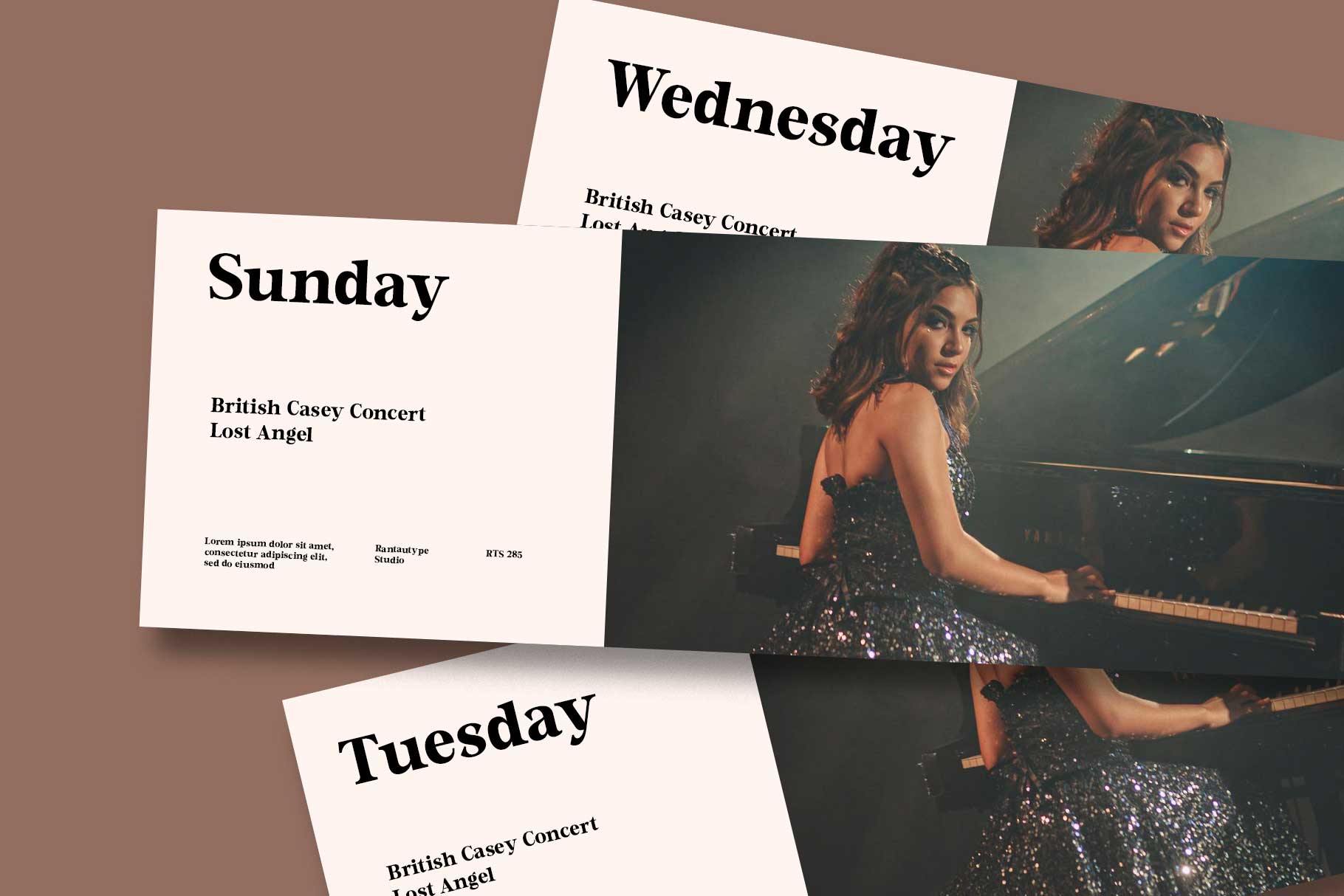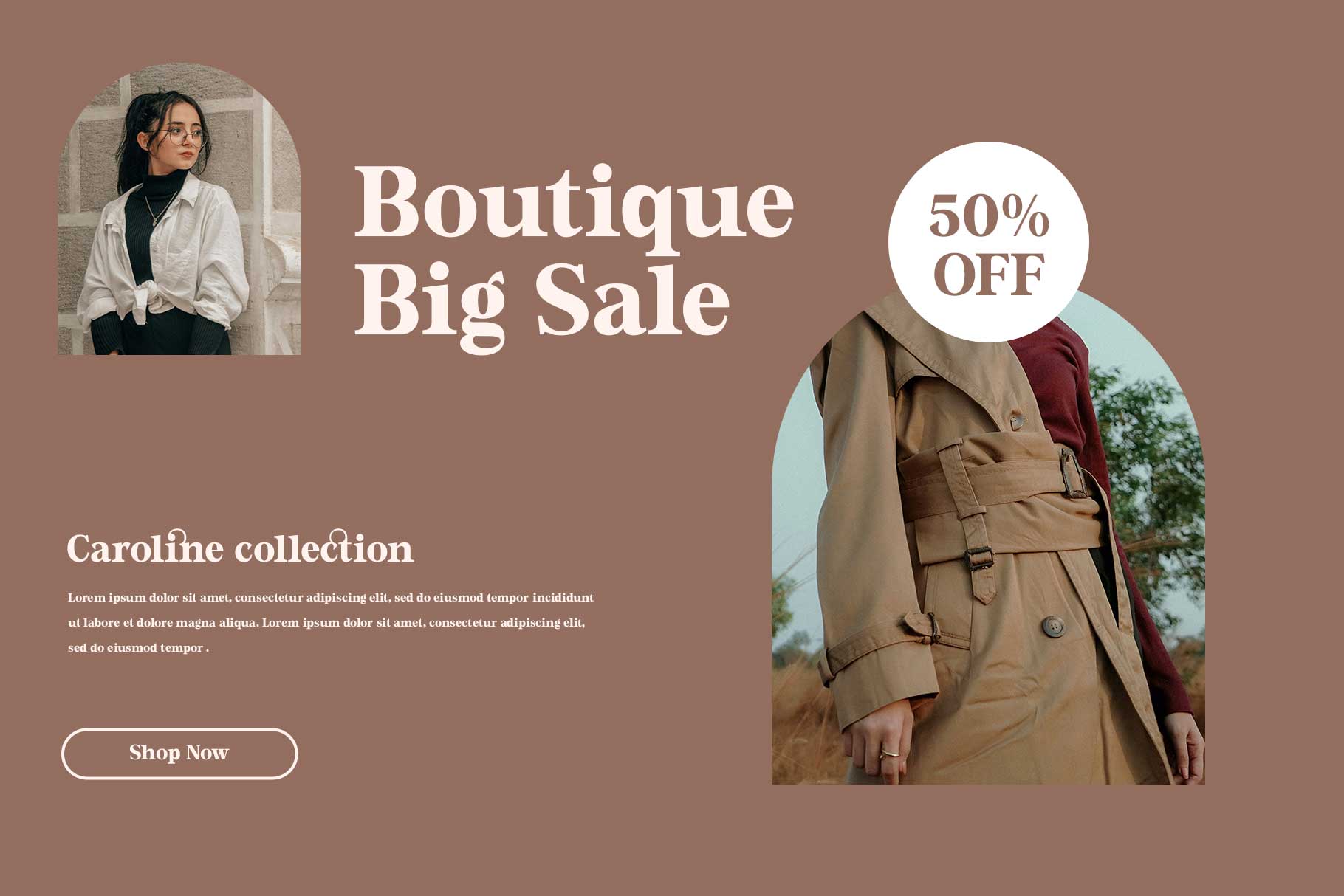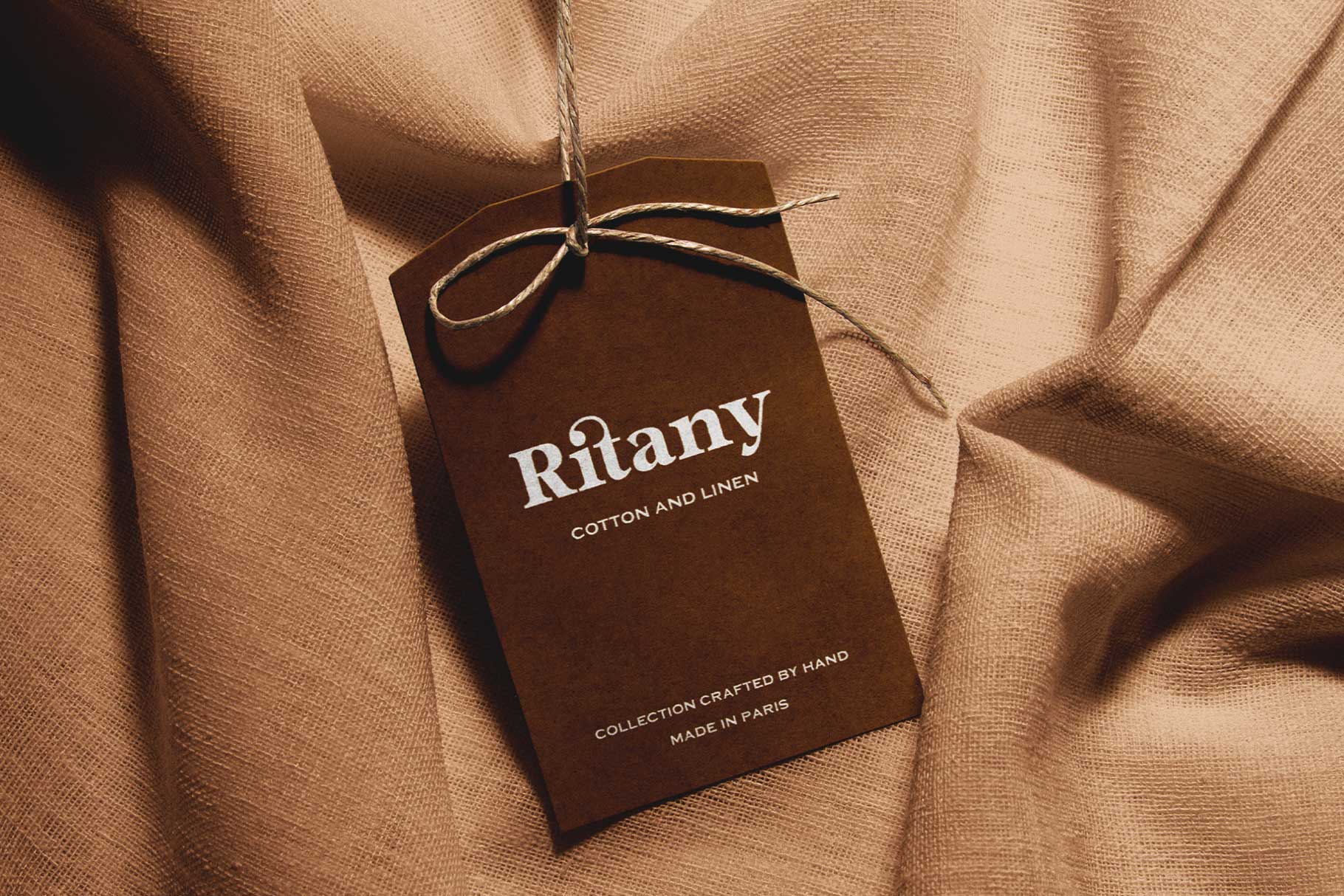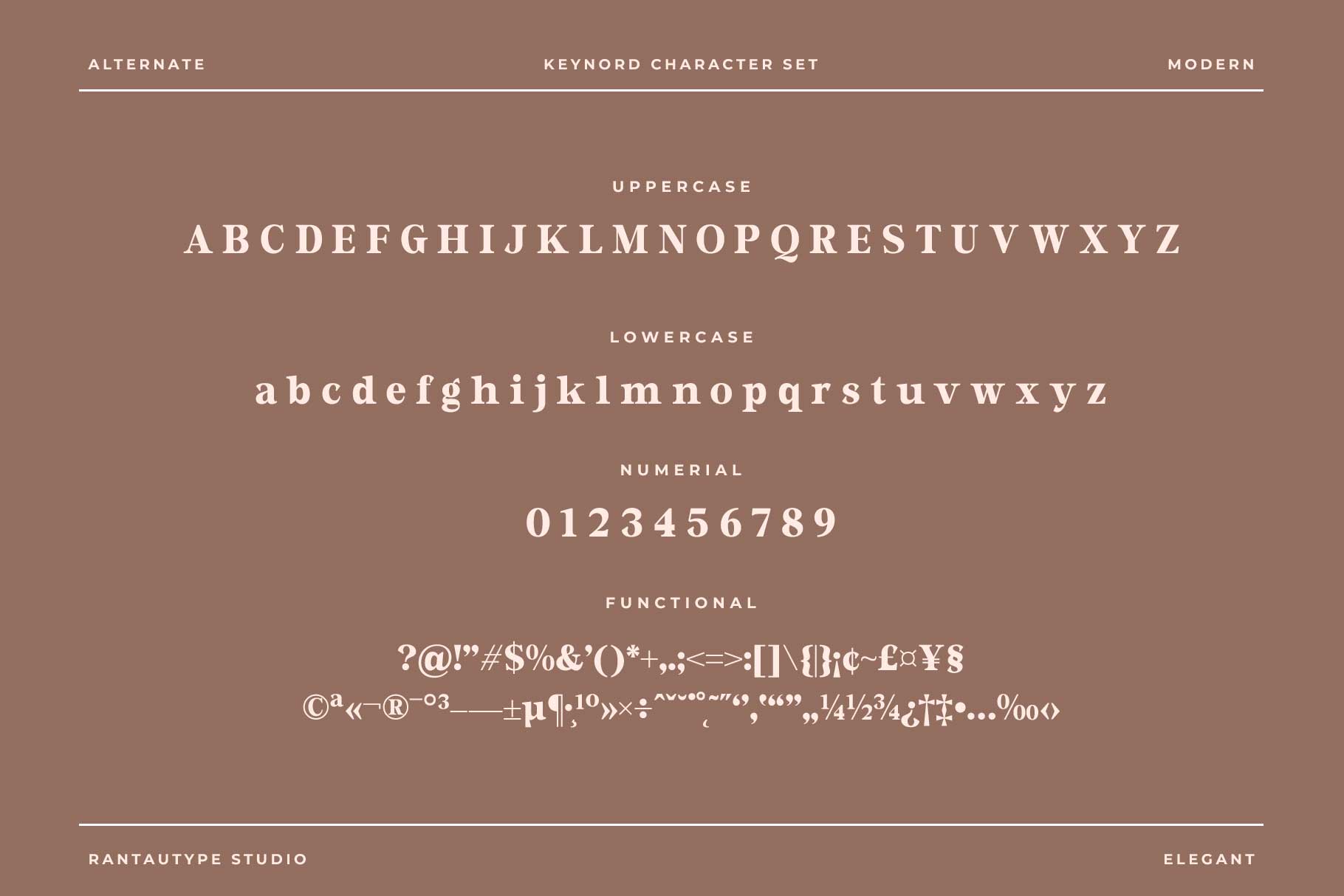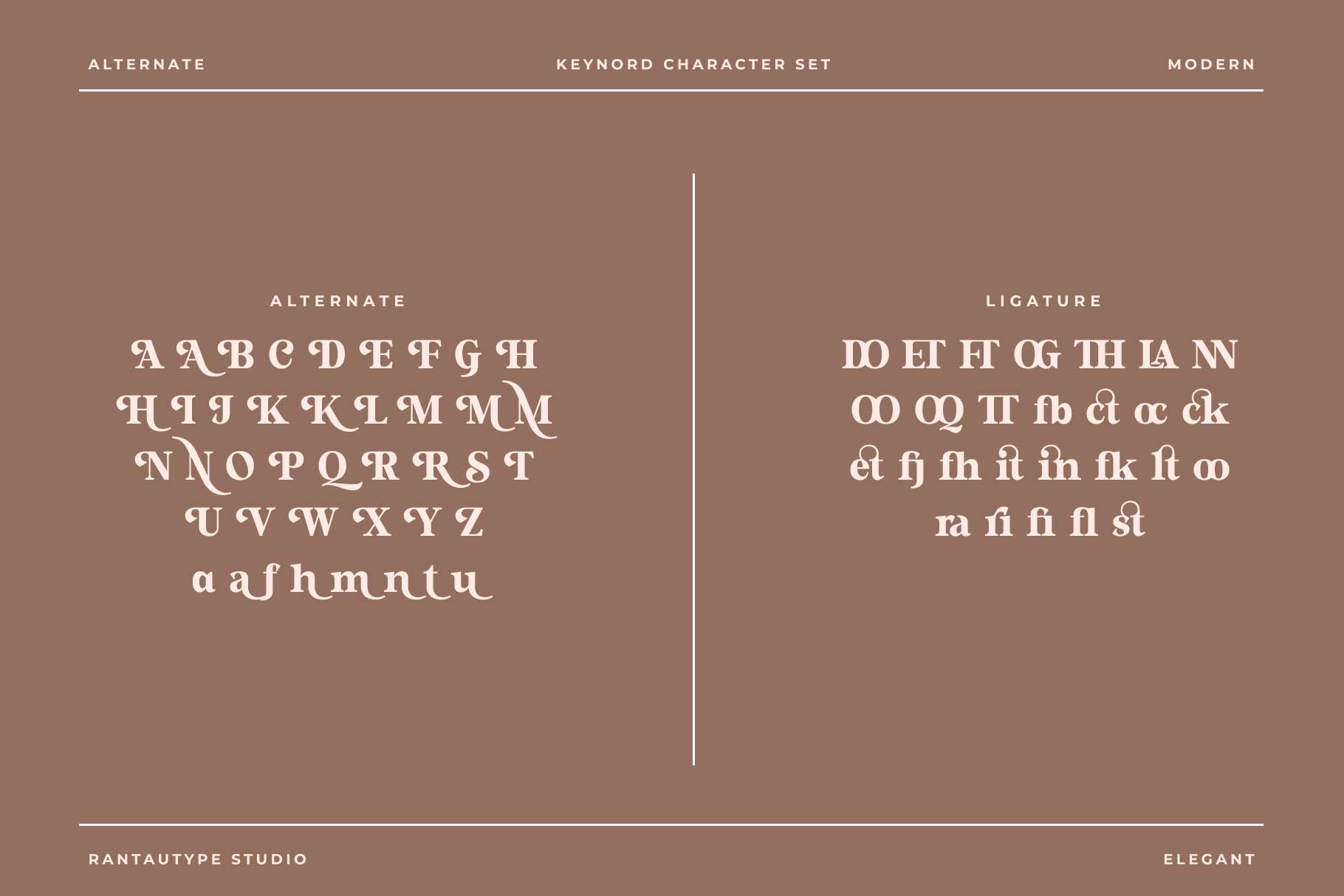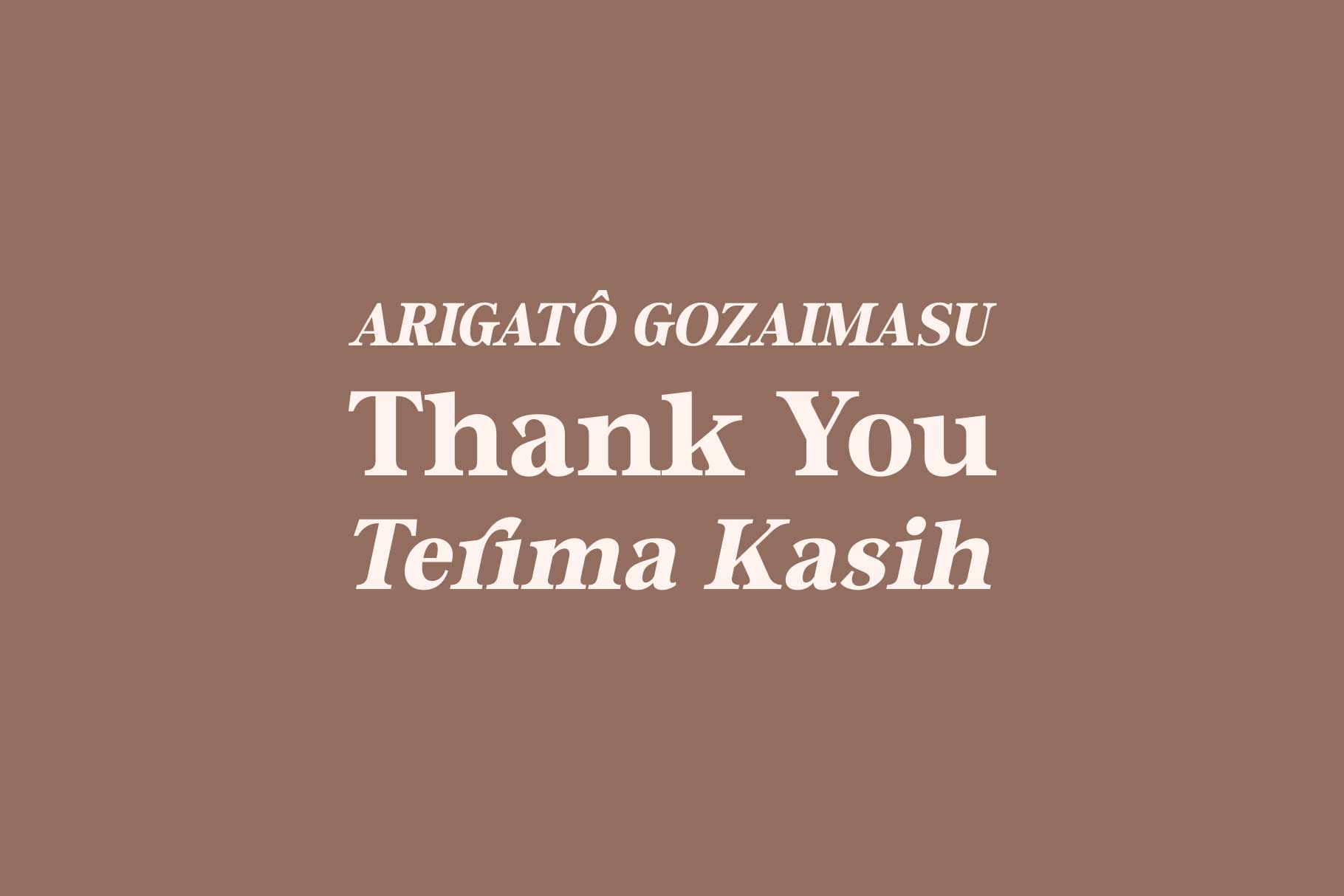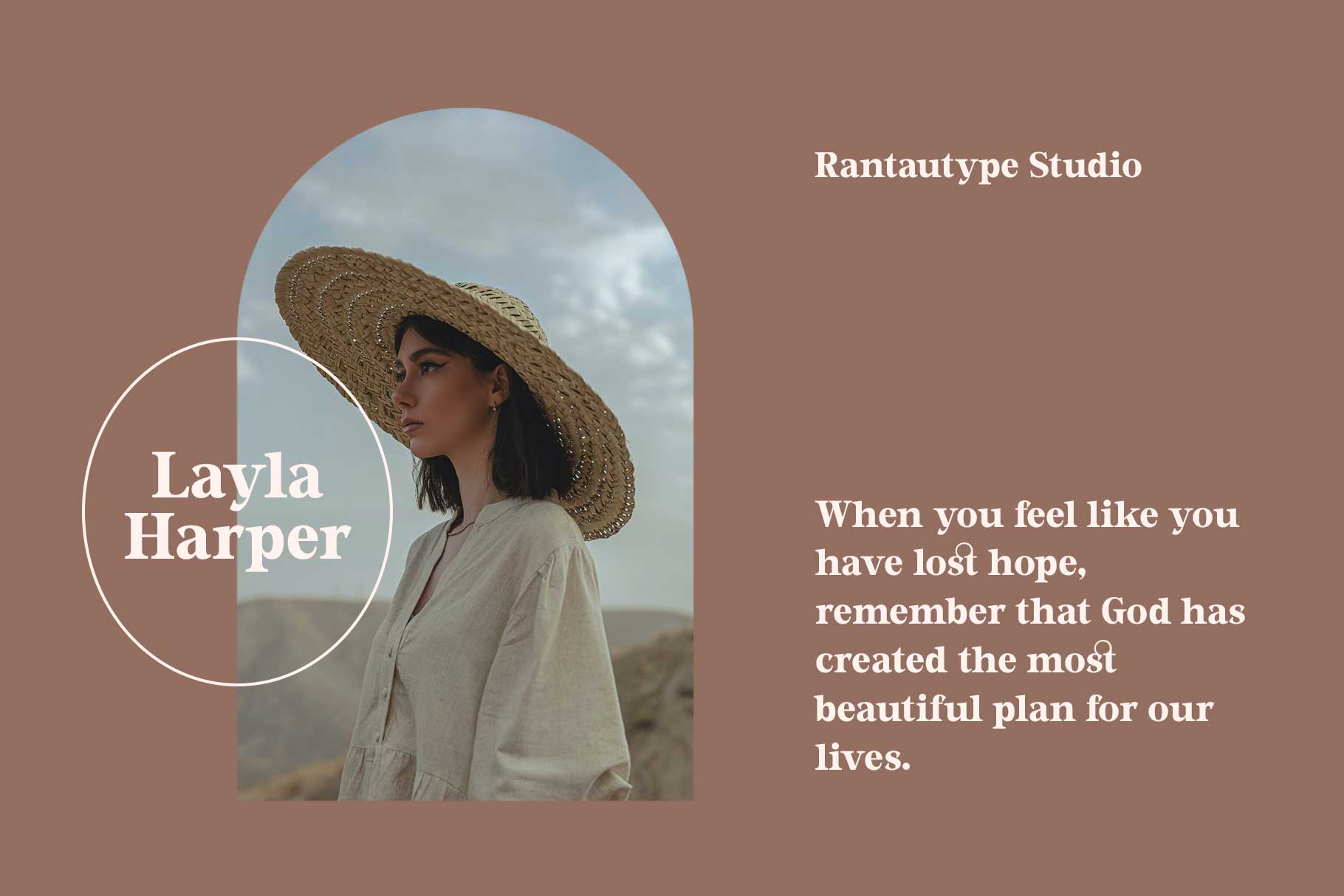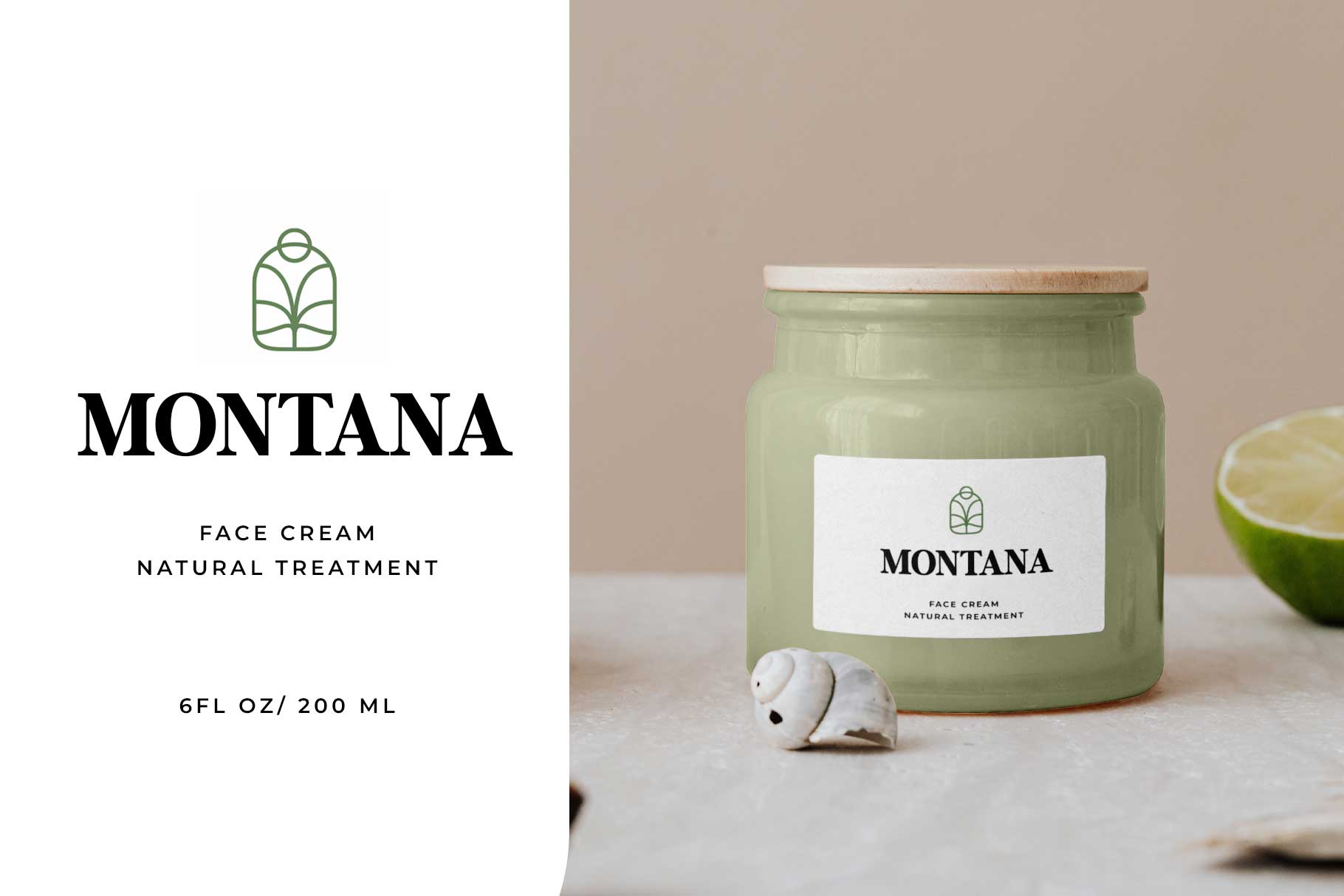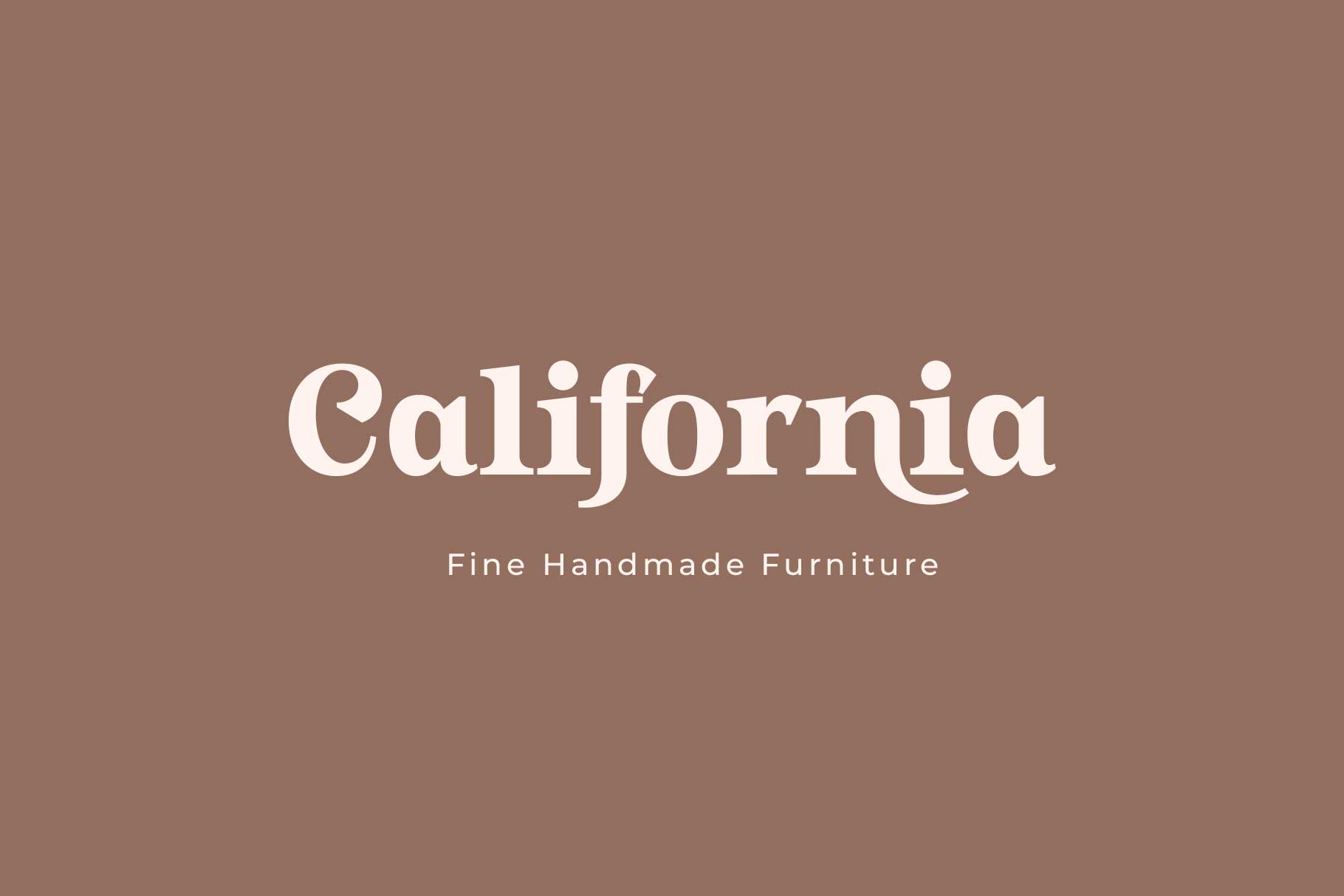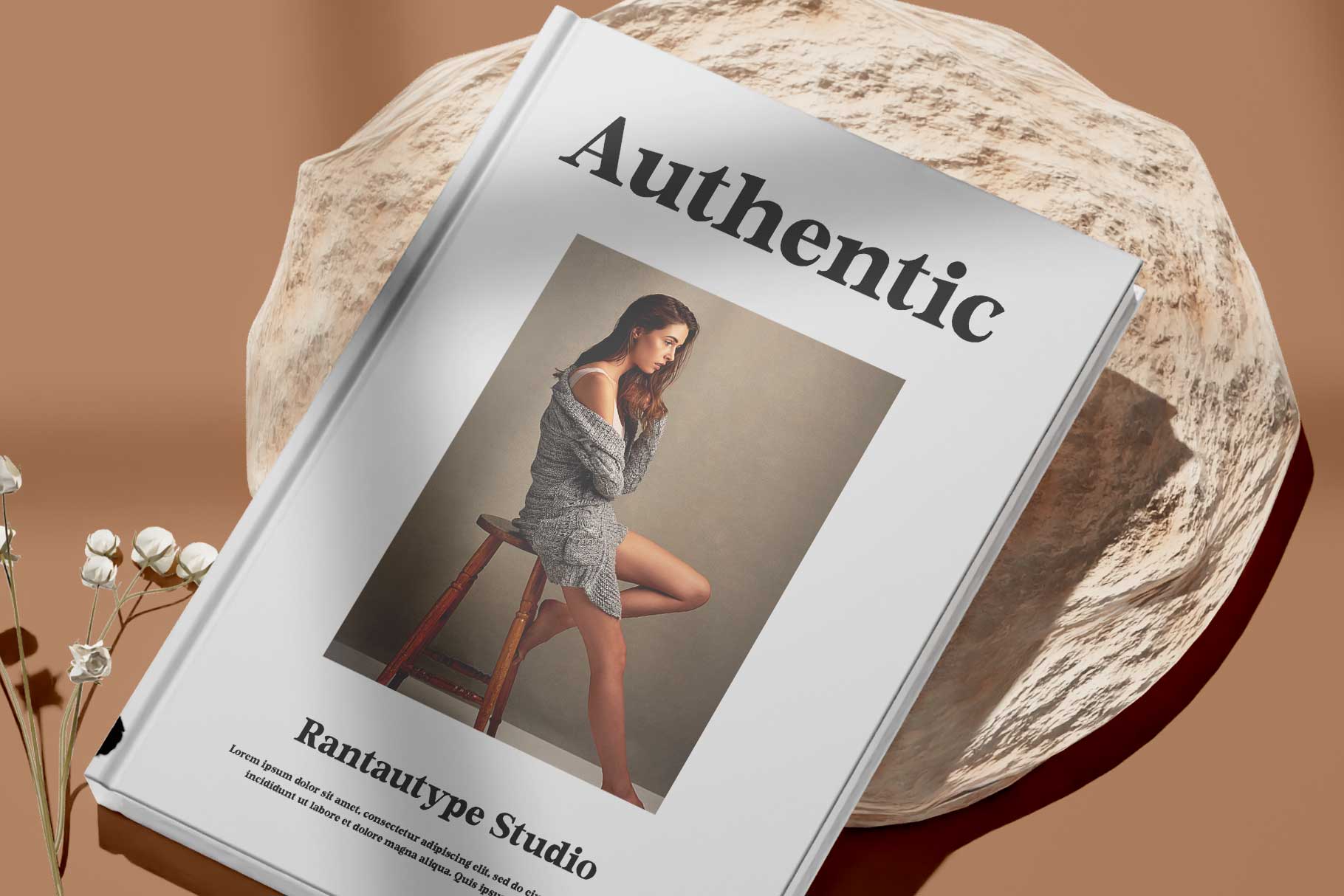
Keynord Modern Serif Font
Keynord is a modern serif font with beautiful feature. Keynord is a perfect choice for any creative endeavor, chic, lifestyle design such as logos, advertisements, watermark on photography, stationery, branding project, display and magazine, invitation, corporate brand, product design, label, business project and many other project need elegant taste.